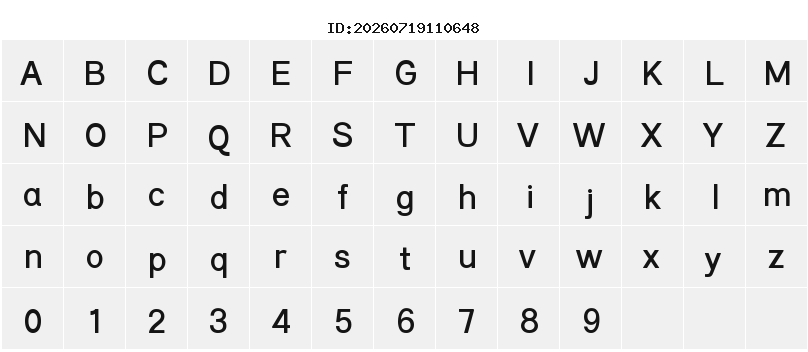
也字工厂新雨明朝体试用版 Preview
• Font Name: 也字工厂新雨明朝体试用版
• Full Font Name: 也字工厂新雨明朝体试用版
• Manufacturer: 也字工厂
About 也字工厂新雨明朝体试用版.ttf
也字工厂新雨明朝体试用版.ttf is a modern, elegant sans-serif font designed for ultimate readability and visual harmony. Perfect for branding, headlines, web design, and print materials.